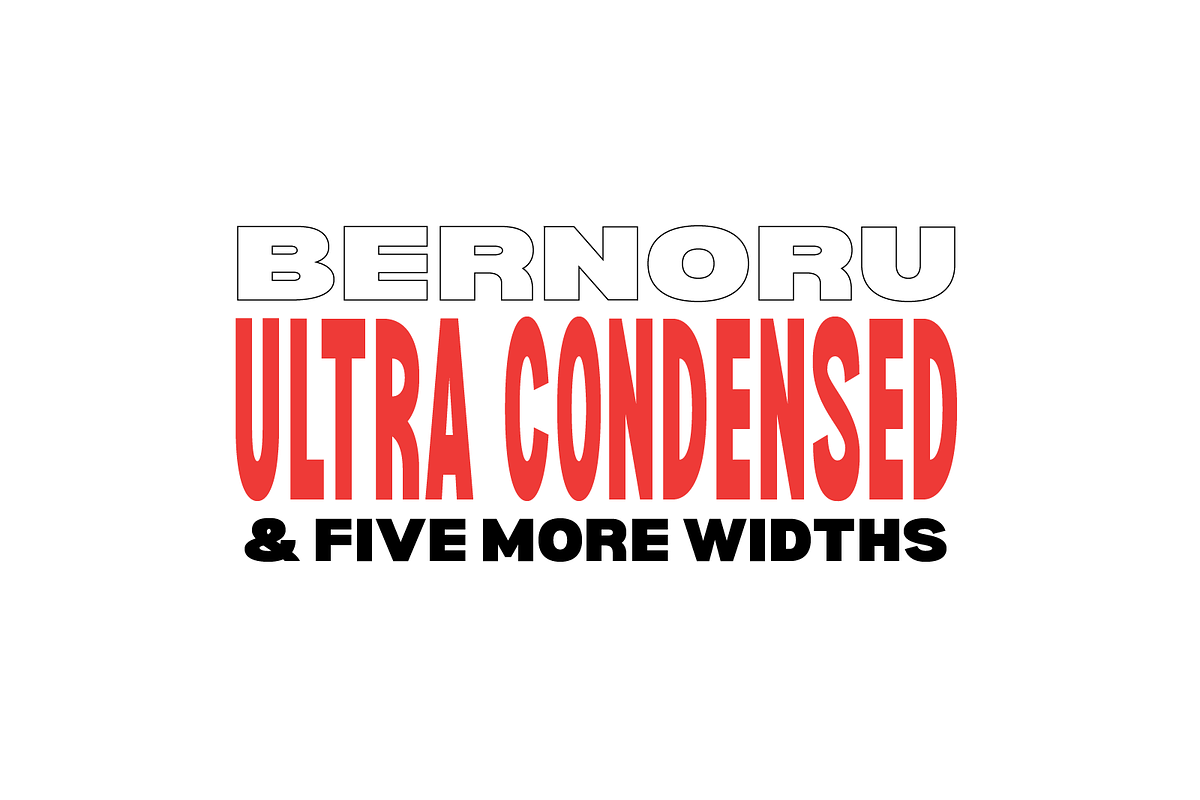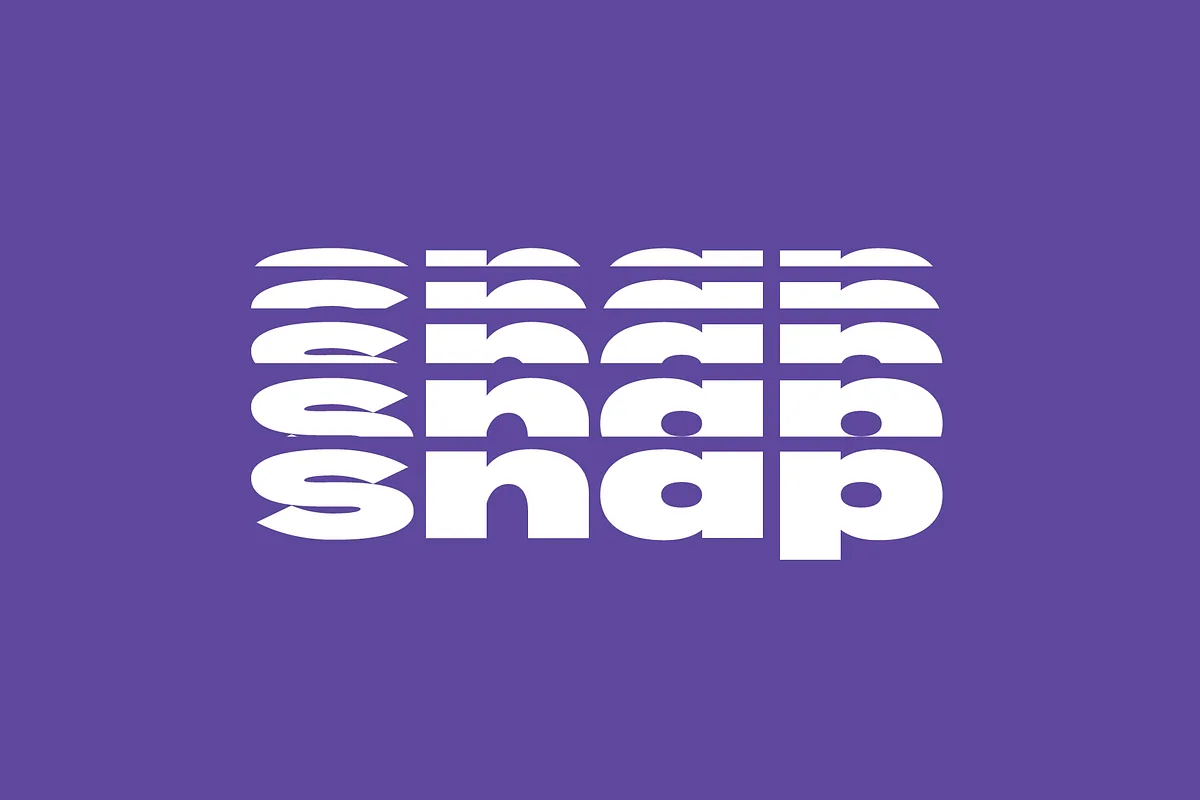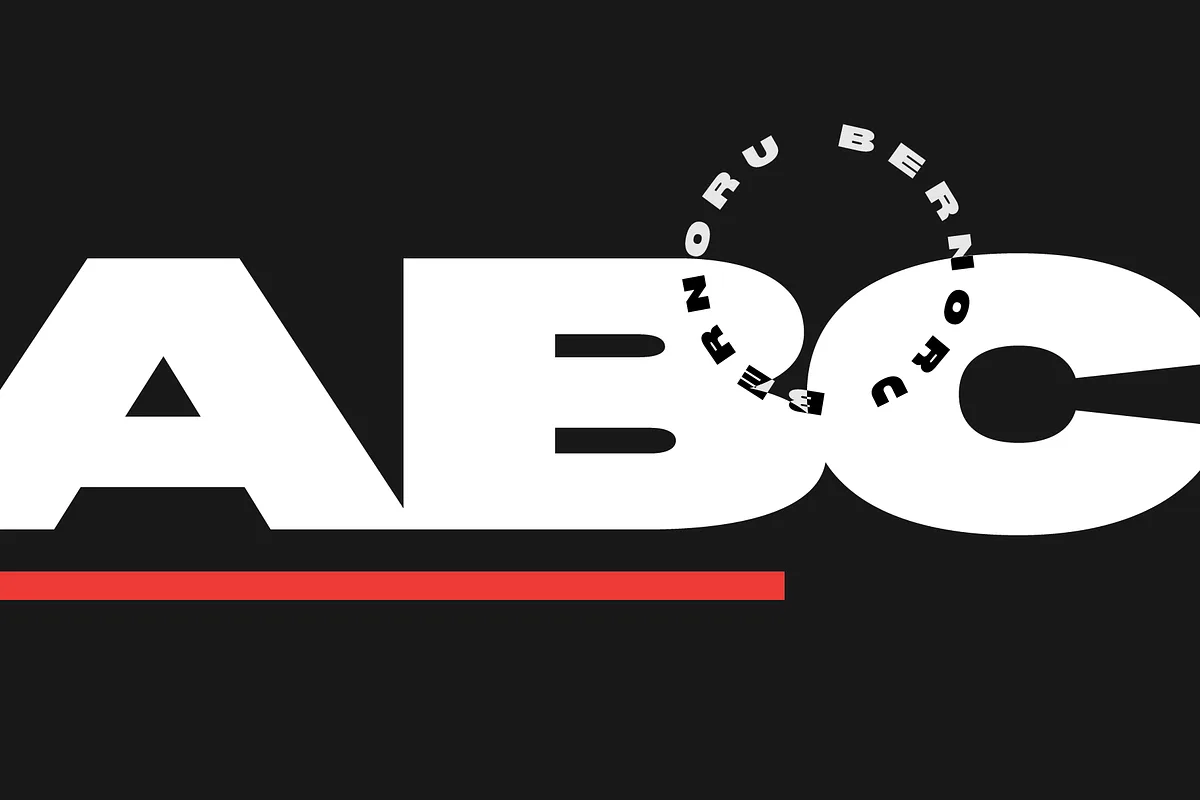
Bernoru Sans is a bold, eye catching display typeface perfect for posters, headlines and branding. The font is currently being developed with more weight and features to be added. Currently 6 widths, see roadmap below for future features to come.